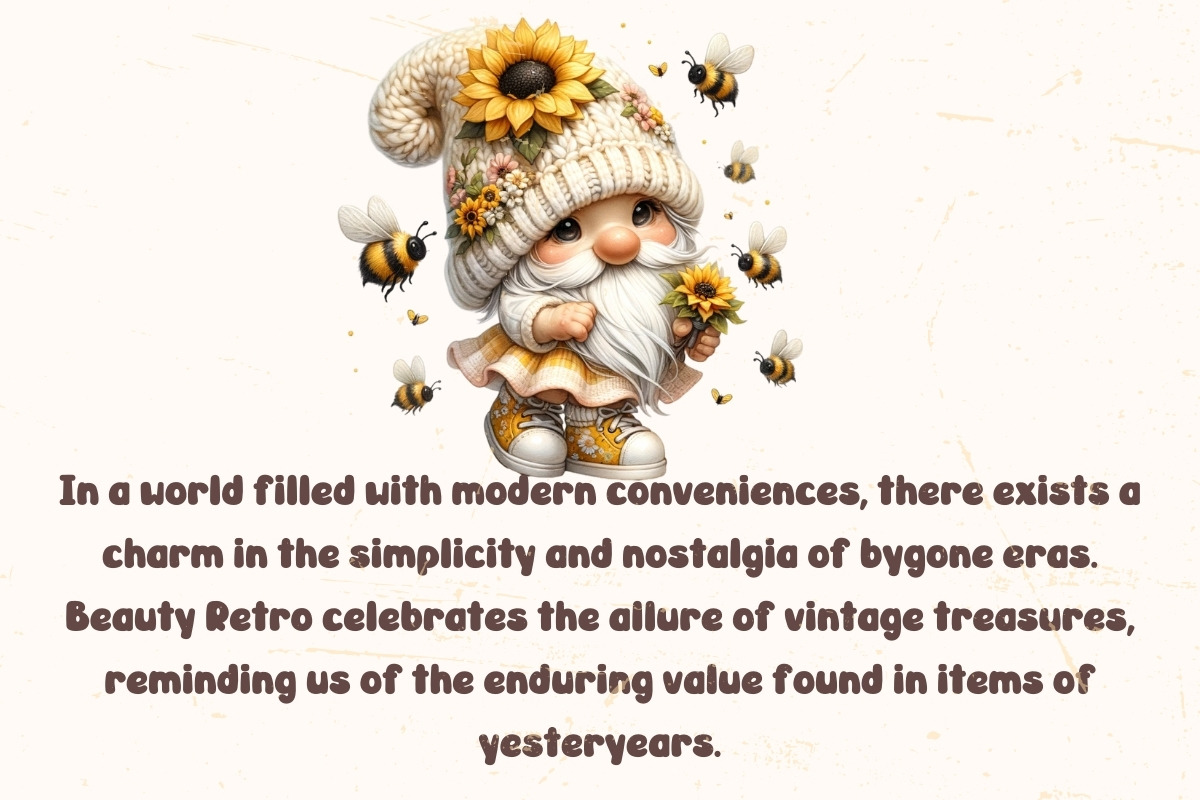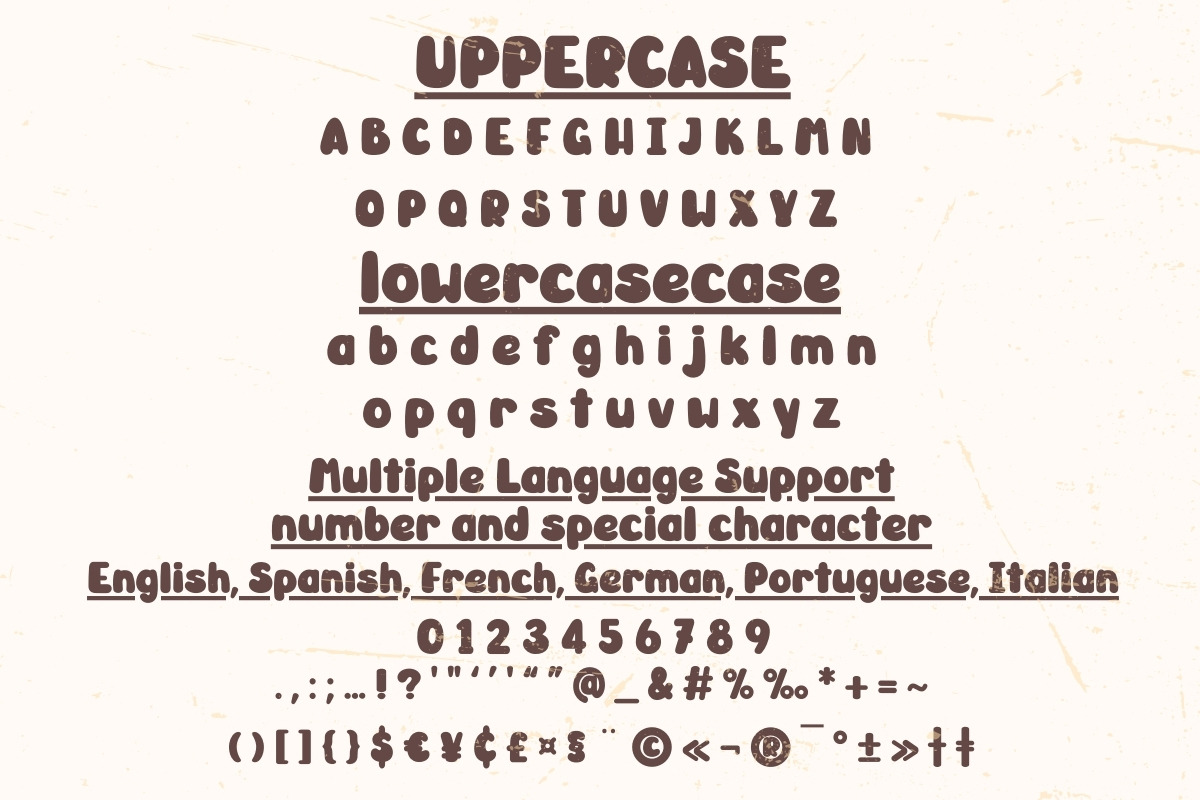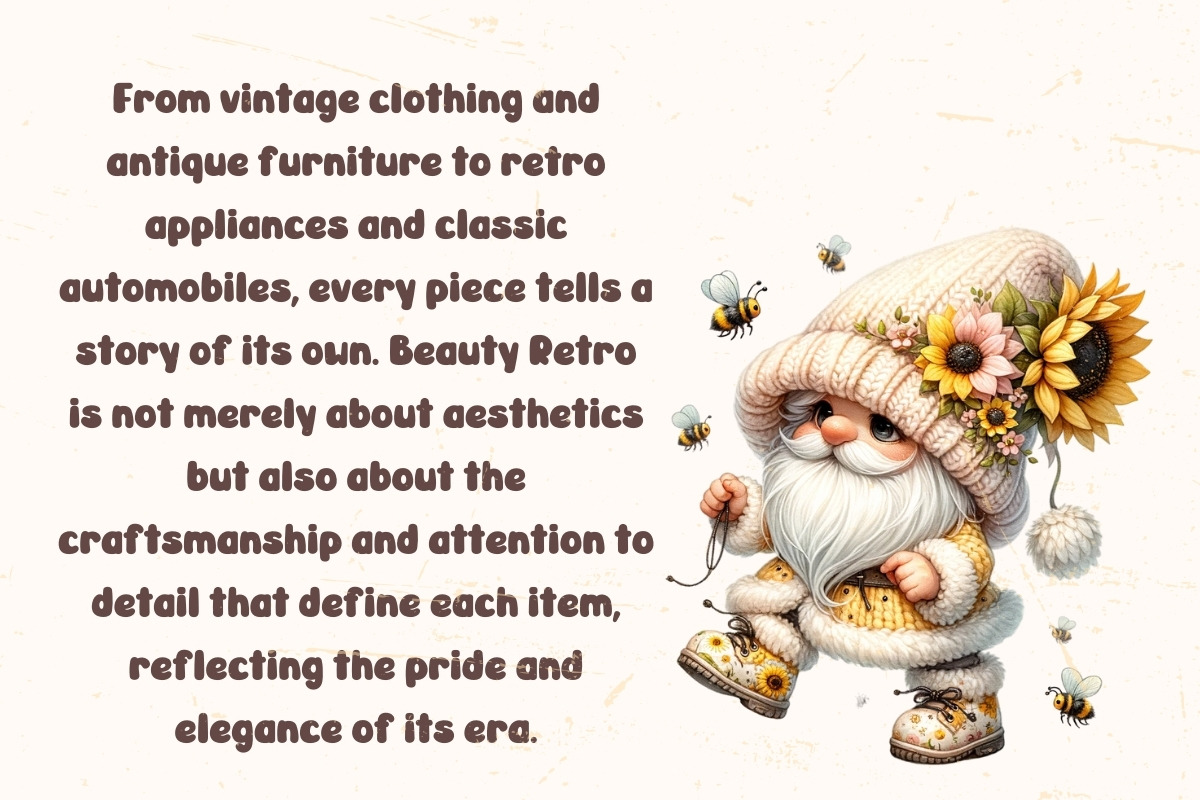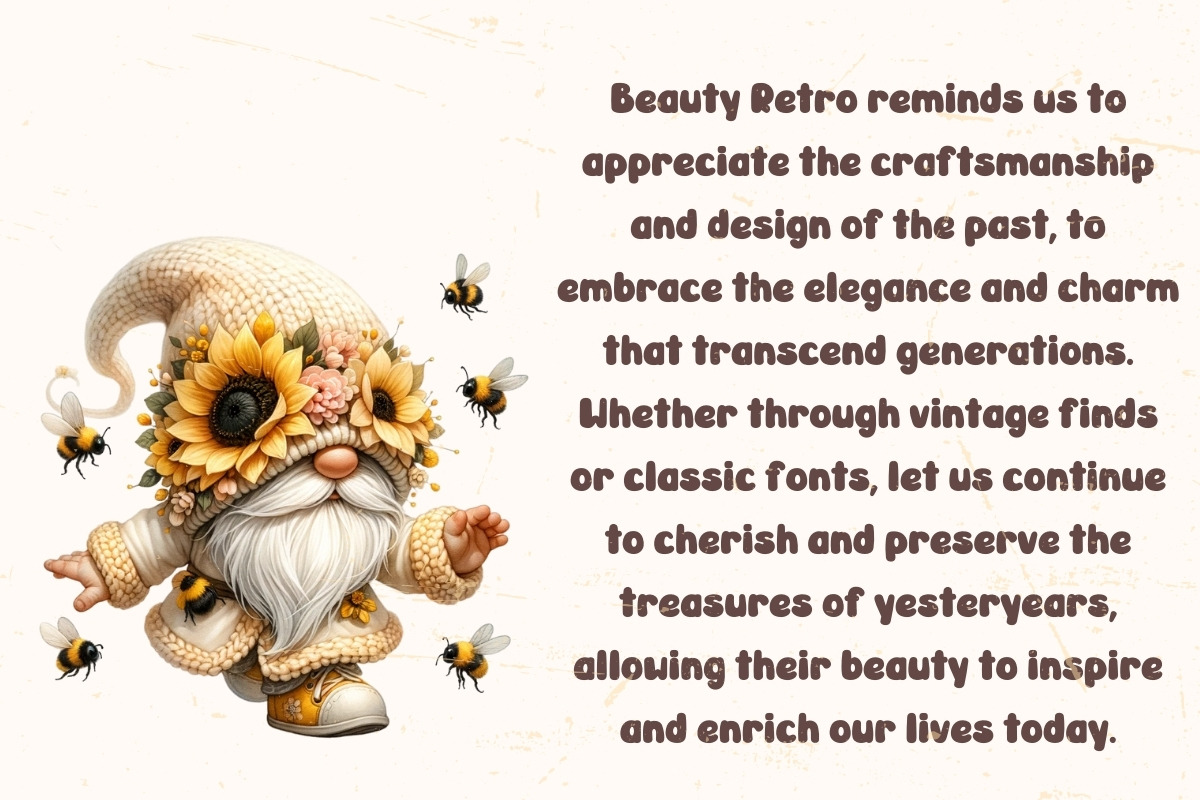
Beauty Retro - Handwritting
"Introducing Beauty Retro, a whimsical and charming handwritten font that adds a touch of elegance to any project. With its delicate strokes and playful curls, this font exudes a sense of nostalgia and warmth, reminiscent of handwritten love letters from bygone eras. Perfect for adding a personal and romantic flair to invitations, greeting cards, logos, and more, Beauty Retro will transport you to a world of timeless beauty and enchantment."